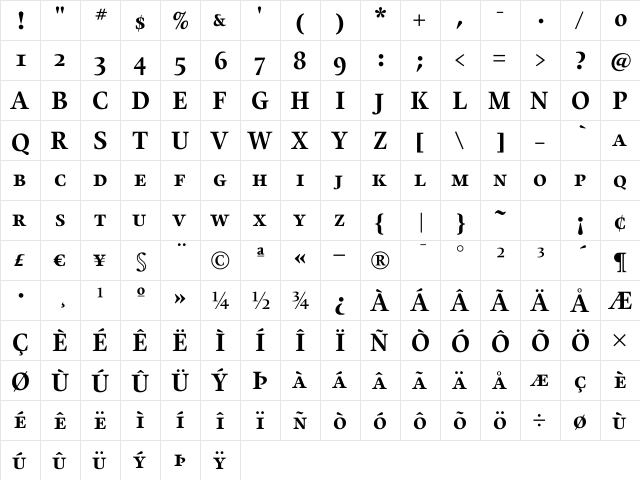
Alias UnionSC Bold Regular Font Preview
Alias UnionSC Bold Regular
Alias UnionSC Bold Regular Font Details
Design Context for Alias UnionSC Bold Typeface
Alias UnionSC Bold offers clean, dependable letterforms without strong stylistic allegiance, making it a practical choice for designers who need flexibility. Its bold stroke weight gives it real presence on the page.